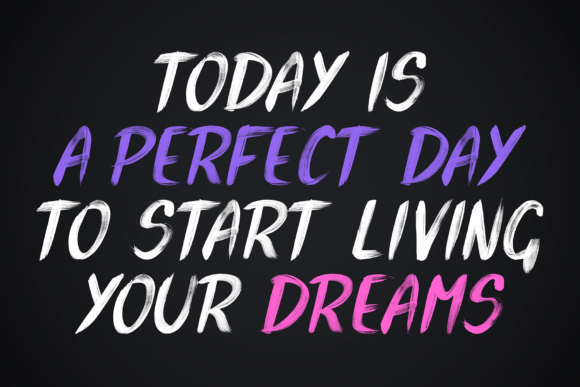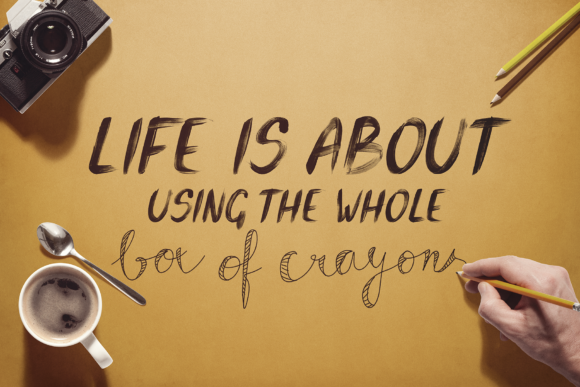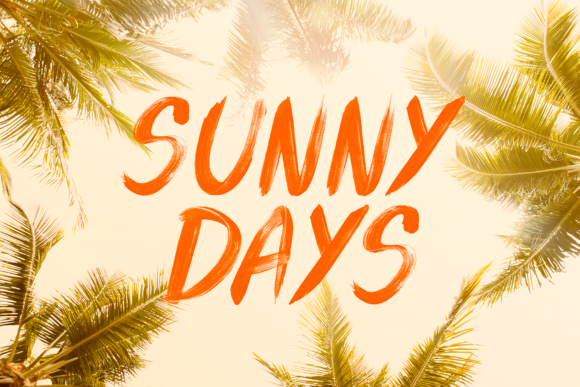
Gustave Font – Free Download
Introduction to Gustave Font
Gustave is an all-caps brush display font made using acrylic paint that comes together with a unique SVG font containing all the realistic effects.
| 👤 Author | Mint Pixels |
Use this splendid duo to create the most amazing designs .
Key Features of Gustave Font
Why Choose Gustave Font?